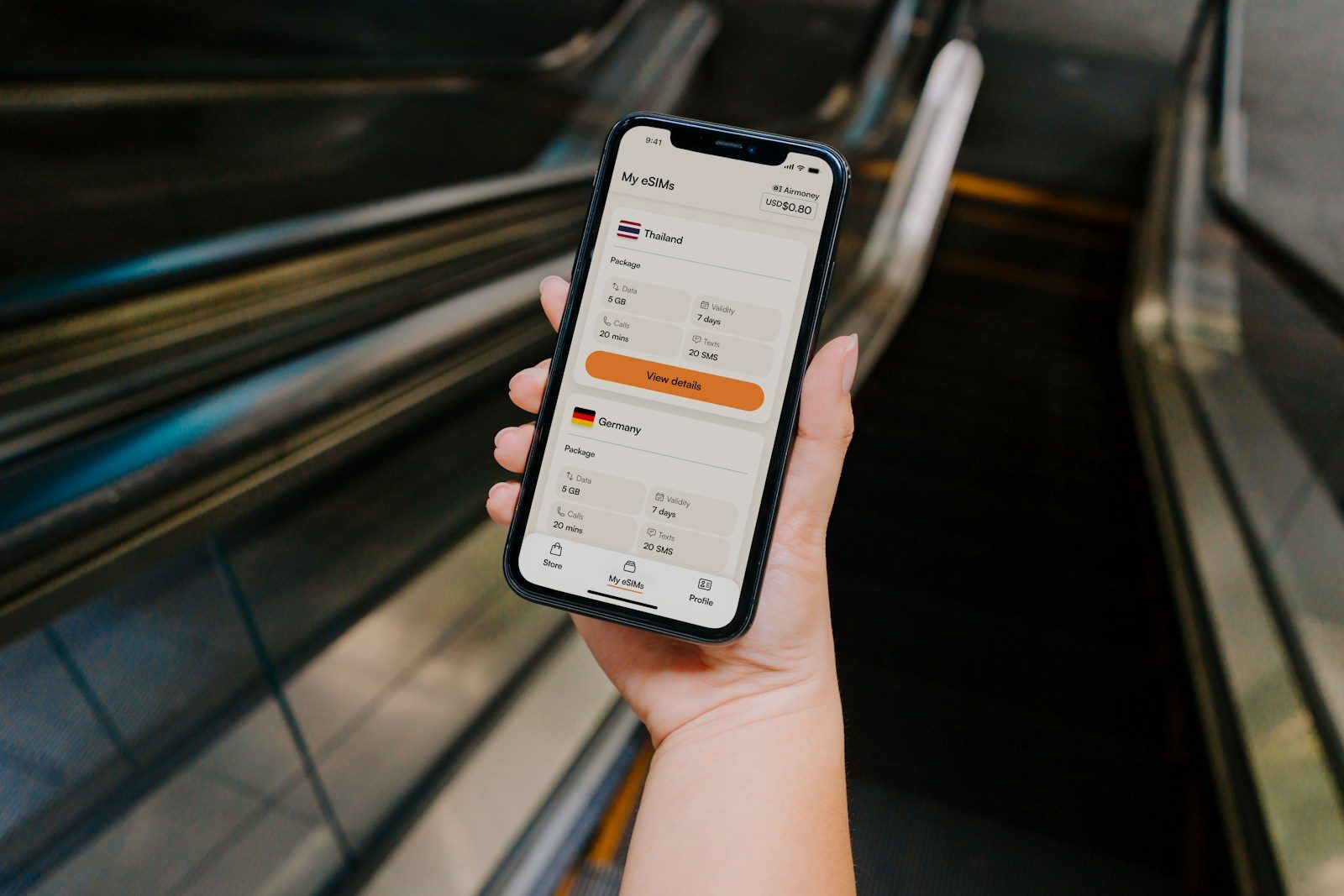
How Good Design Shapes Trust in Digital Travel Services
Design is not only about how a website looks. It also affects how people read information, compare services, make decisions, and trust a digital platform. Typography, layout, visual hierarchy, spacing, and interface clarity can influence whether a user continues browsing or leaves the page. This is especially important for online services connected with travel, mobility, payments, and booking.
Typography and First Impressions
Typography is one of the first design elements a user notices, even if they do not think about it directly. A clear typeface makes information easier to read. A poor font choice can make a page feel confusing, outdated, or unprofessional.
For travel and mobility platforms, readability is especially important. Users often need to check dates, prices, vehicle names, rental periods, insurance details, pickup options, and service conditions. If this information is difficult to scan, the user may lose confidence.
Good typography helps create order. Headings guide the eye, body text explains details, and buttons show the next action. The right font system can make a digital service feel more reliable and easier to use.
Why Visual Hierarchy Matters in Booking Pages
A booking page usually contains many details. Users need to understand what is being offered, how much it costs, what is included, and what they should do next. Without strong visual hierarchy, all information can look equally important, which makes the page harder to use.
Visual hierarchy solves this by organizing content into clear levels. The most important information should be easy to find first. Secondary details should support the decision without overwhelming the user.
For example, a car rental page may need to show vehicle category, rental duration, price, availability, pickup location, documents required, and booking steps. Design helps users move through this information naturally.
Digital Trust Starts with Clarity
Trust is a major part of any online booking experience. Users may need to share personal details, driving licence information, contact data, and payment information. Before they do that, they need to feel that the platform is clear and dependable.
Design plays a key role in this feeling. Clean typography, consistent spacing, simple navigation, and visible terms can make the process feel safer. Confusing layouts, aggressive pop-ups, unclear buttons, or crowded text can create hesitation.
For long-term services, trust becomes even more important. A user booking a car for several weeks or months wants to understand the rental conditions before making a decision. Clear content and thoughtful design reduce uncertainty.
Mobile-First Design for Modern Travelers
Many travelers plan their trips from mobile devices. They may compare options at the airport, in a hotel, during a meeting break, or while moving between locations. This makes mobile readability essential.
A mobile-friendly design should have clear text sizes, readable fonts, simple forms, and buttons that are easy to tap. Long paragraphs should be broken into shorter sections. Important details should not be hidden behind complicated menus.
For travel services, mobile design can directly affect conversion. If users cannot easily check information or complete a booking on their phone, they may switch to another provider.
The Role of Fonts in Brand Personality
Fonts communicate personality. A modern sans-serif typeface can suggest efficiency and simplicity. A premium serif may suggest elegance. A playful display font may work well for entertainment or lifestyle brands, but it may not be suitable for a serious booking platform.
Travel and mobility brands usually need a balance between clarity and character. The design should feel modern, but not distracting. It should support the service rather than compete with it.
For car rental and travel platforms, the best font choices are often clean, readable, and flexible across different screen sizes. They should work well for headings, filters, prices, descriptions, and forms.
User Experience Beyond the Visual Layer
Good design is not only visual. It also includes the user journey. A platform may use beautiful fonts and strong images, but if the booking process is confusing, the experience still fails.
A strong user experience should answer key questions quickly:
• What service is offered?
• Where is it available?
• How long can the user book it for?
Final Thoughts
Typography and digital design have a direct effect on how users experience online travel services. They influence readability, trust, navigation, and decision-making. A well-designed platform helps users understand their options and feel more confident before booking.
For travel and mobility brands, good design is not decoration. It is part of the service itself. When information is clear, the interface is easy to use, and the booking process feels reliable, users are more likely to complete their plans with confidence.